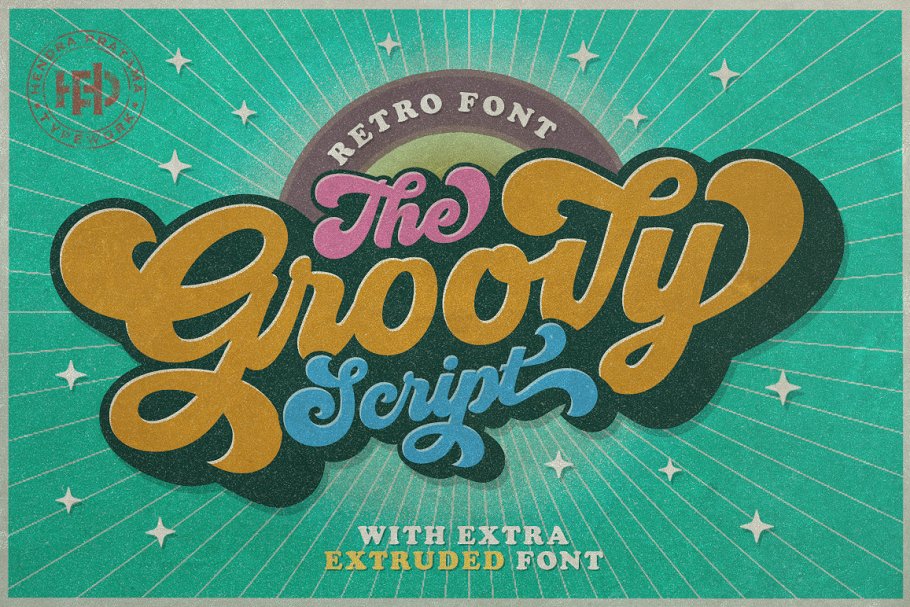
Groovy is a retro font created by Hendra Pratama, a Font Creator from Indonesia. It was very inspired from the famous retro typography designs in late 60’s untill 70’s.
Groovy also comes with extra Extruded Font version. So you won’t need extra effort for create an extrude effect for this font. This mean it will saves your time.
Total 593 glyphs was crafted inside Groovy Some OpenType Features also added to this bold and sporty font.
The Features includes: Stylistic Alternates, Swashes, Ligatures, Contextual and Stylistic Set. You can pick the alternate for subtitution up to 21 variant per-letter.